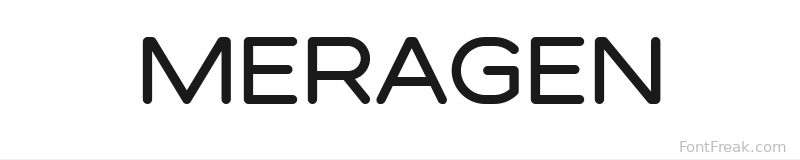
MERAGEN
Introducing the MERAGEN font by Mukhlis Muhammad, a striking display typeface that embodies modern elegance and versatility. This font falls into the category of display fonts, making it perfect for eye-catching headlines and impactful design elements. Characterized by its clean lines and balanced proportions, MERAGEN features a medium stroke weight that offers a subtle contrast, enhancing readability while maintaining a contemporary aesthetic. The spacing between characters is thoughtfully designed, ensuring that each letter stands out without compromising cohesion, which is essential for both digital and print applications.
MERAGEN is ideal for a variety of creative projects. It shines in wedding invitations, where its stylish flair adds a touch of sophistication. Additionally, it's a great choice for movie posters, as it captures attention and evokes interest with its modern vibe. Restaurant menus can also benefit from MERAGEN's unique look, providing a fresh and inviting feel that encourages patrons to explore. Graphic designers and content creators will appreciate its versatility, as it can easily adapt to various branding needs, whether for social media graphics or marketing materials.
What sets the MERAGEN font apart is its perfect blend of modern style and functionality. Its unique characteristics allow it to stand out in a crowded marketplace, making it an excellent addition to your design toolkit. Don’t miss the opportunity to enhance your projects with this remarkable typeface; take advantage of the MERAGEN font free download today.